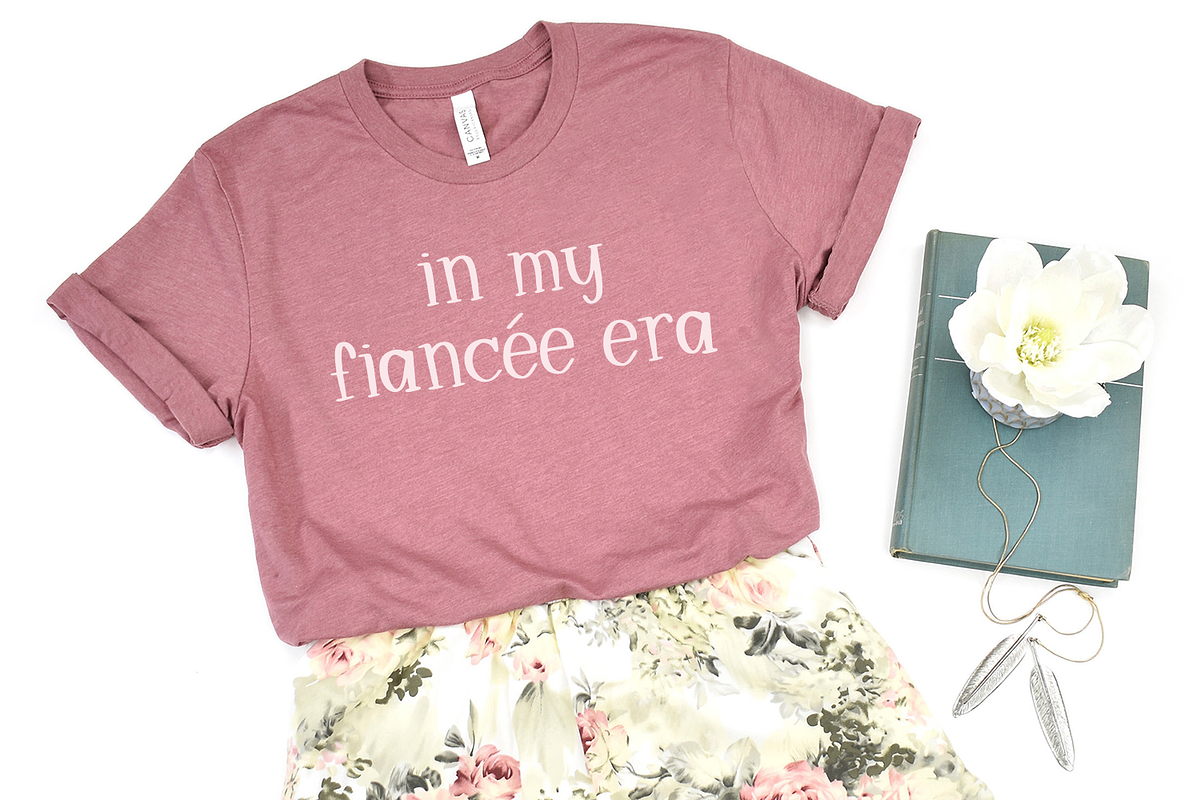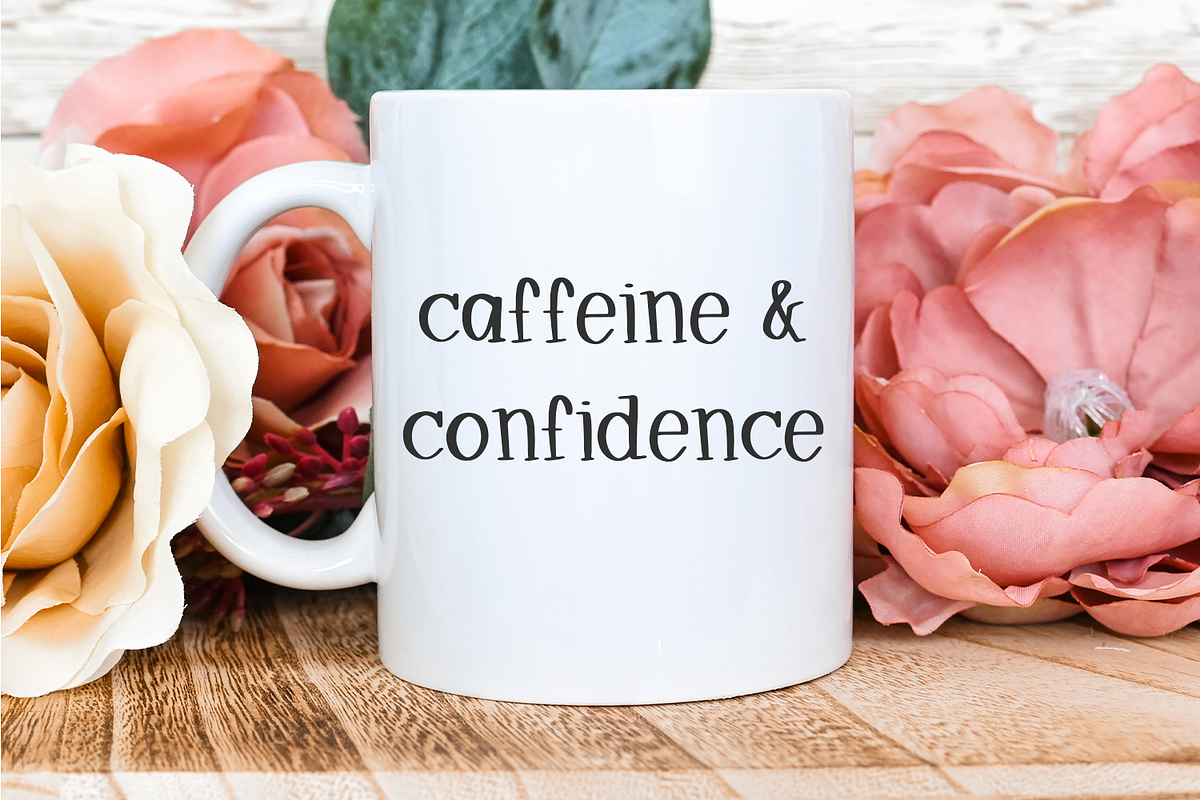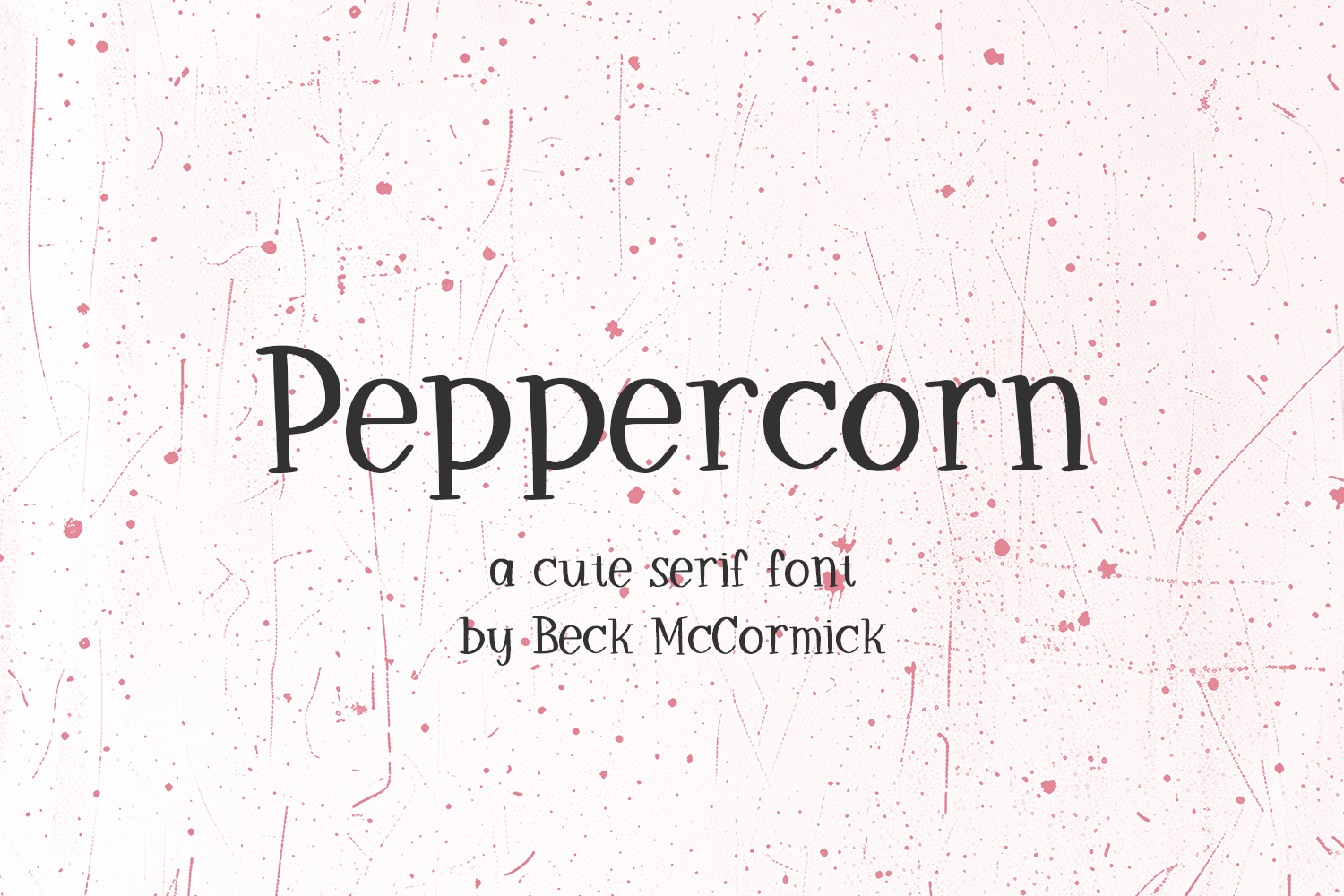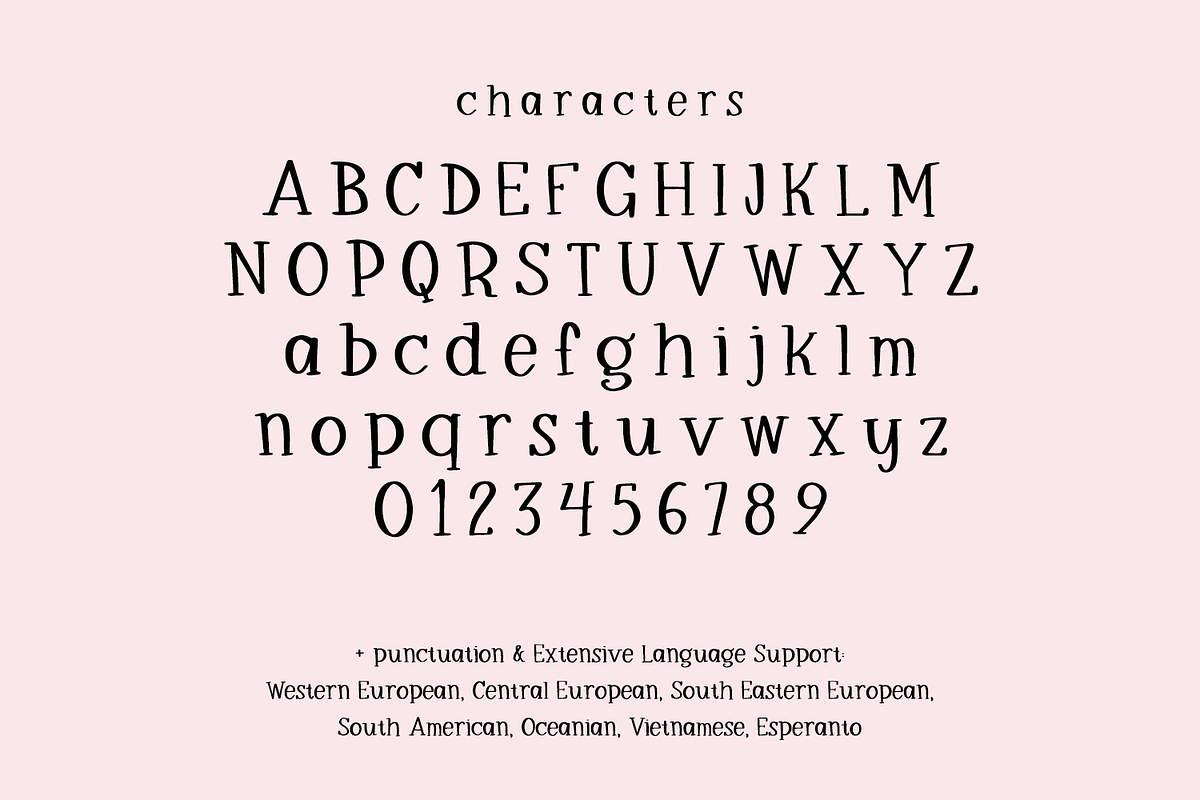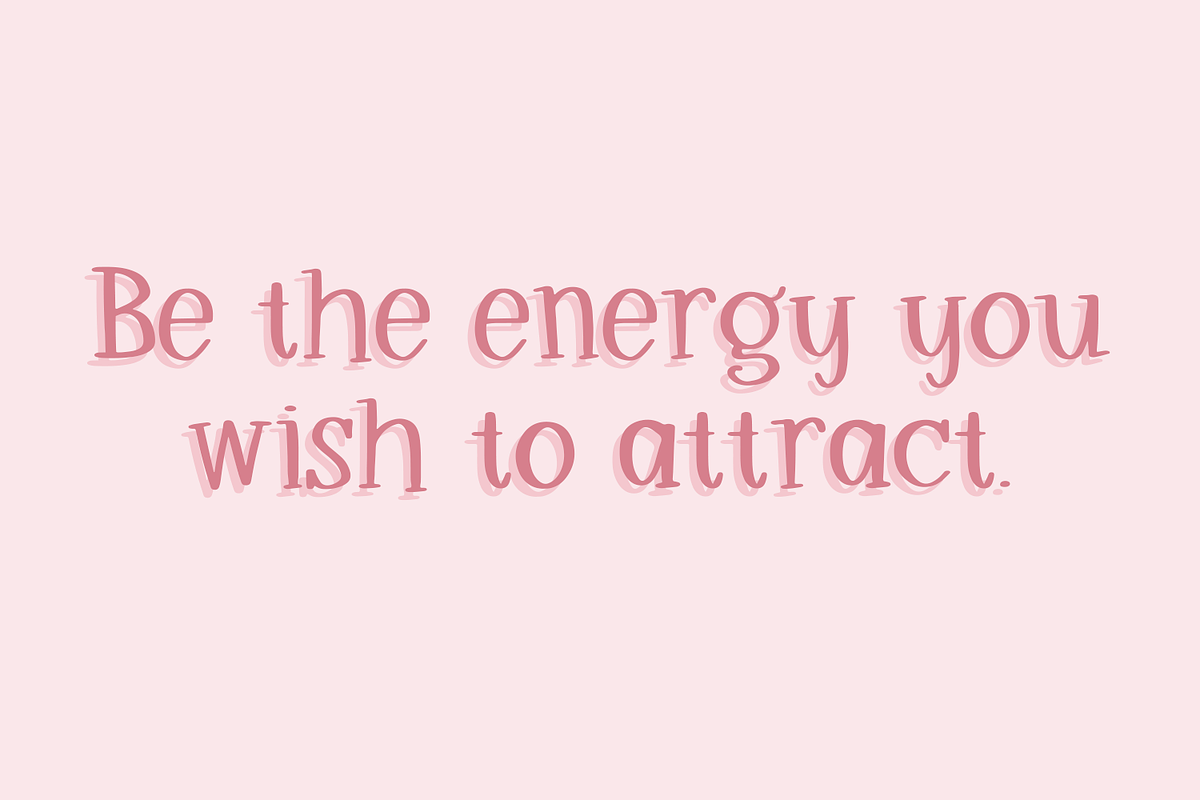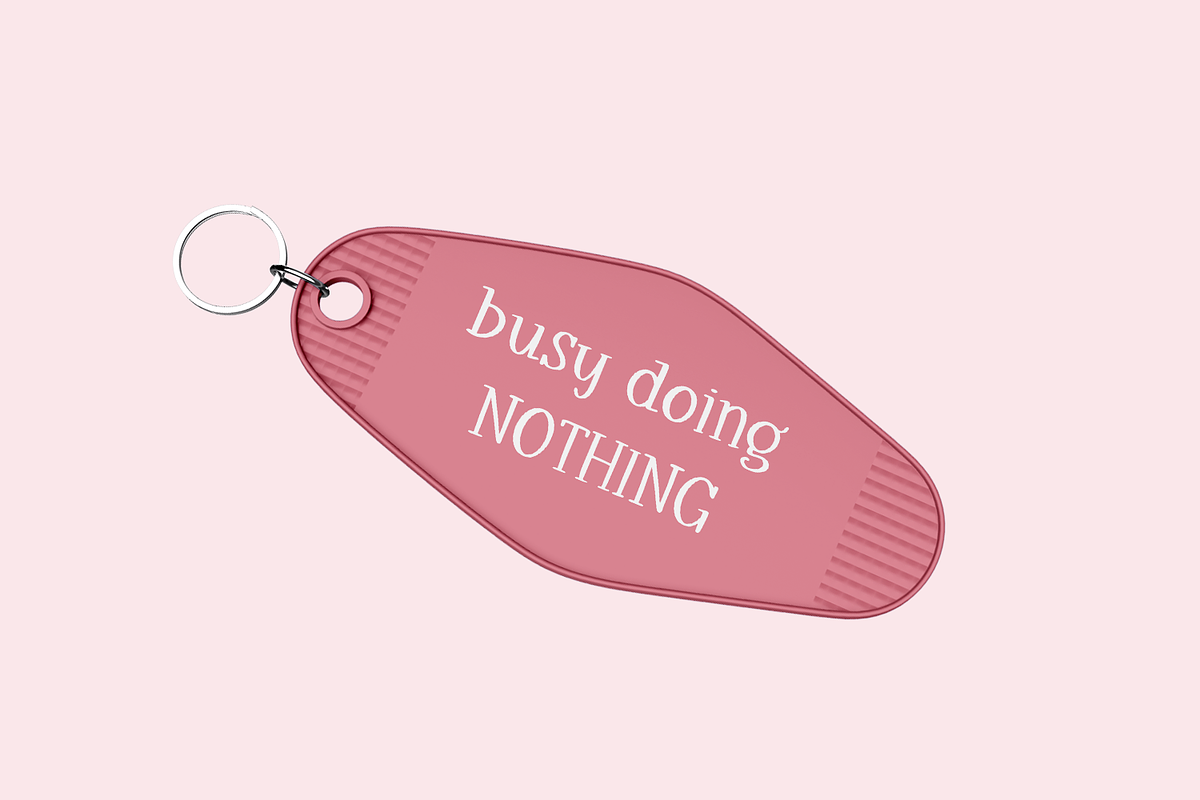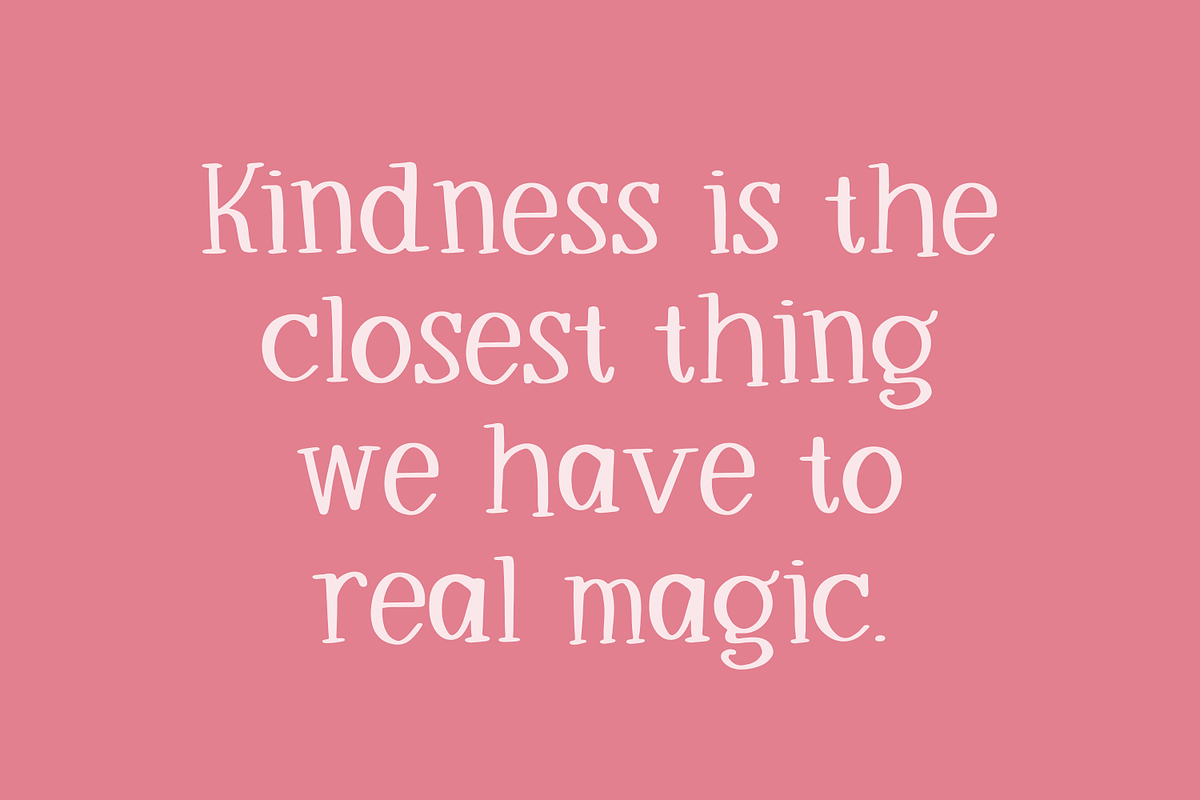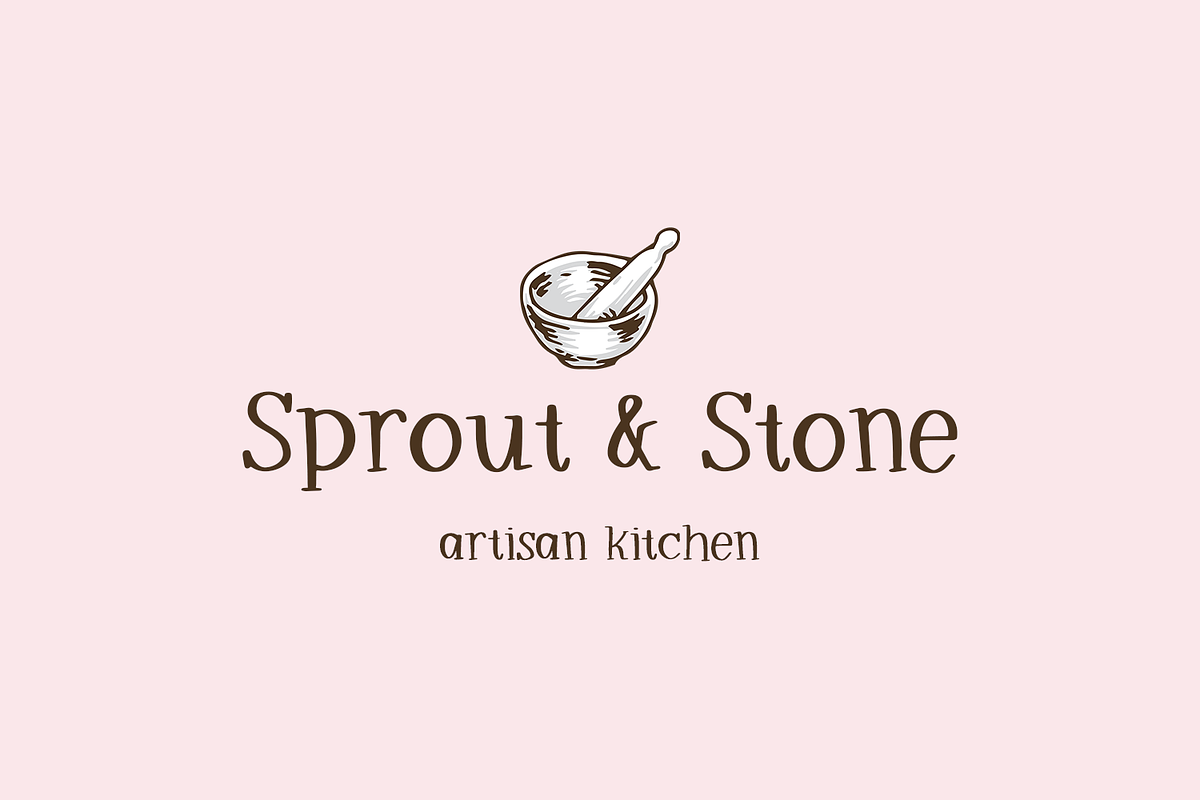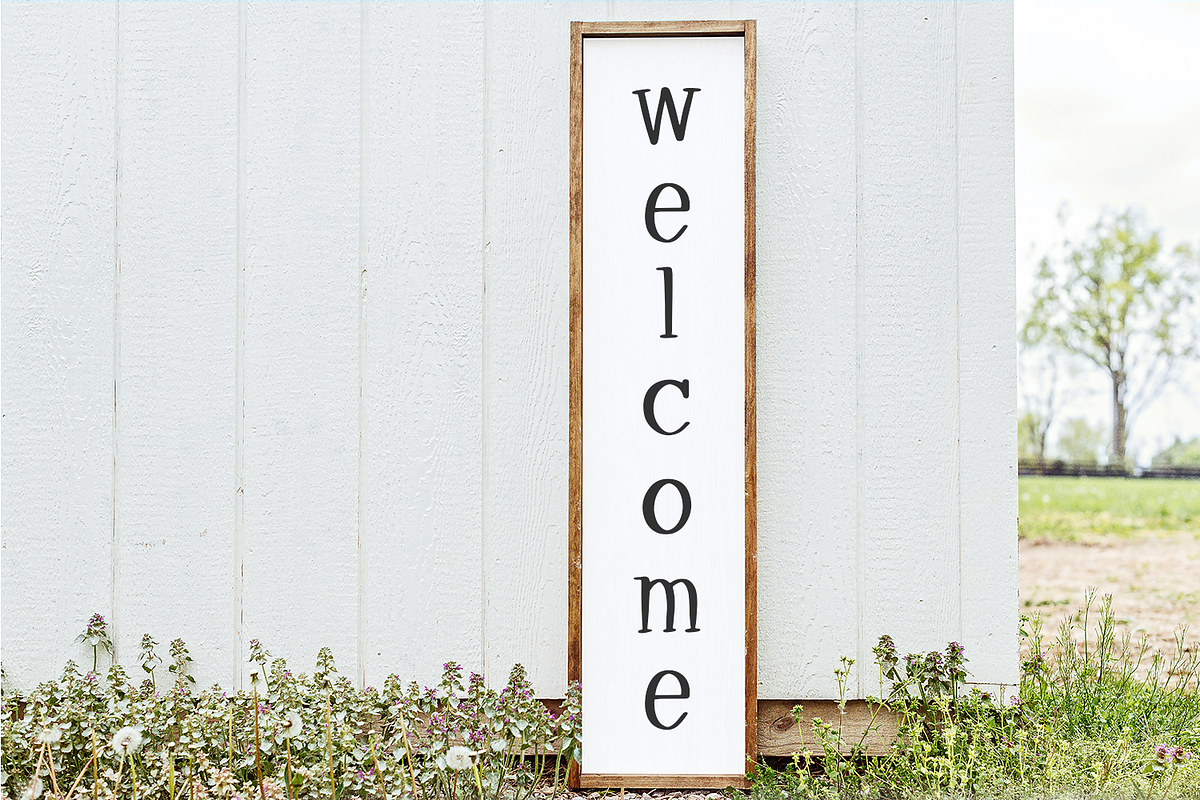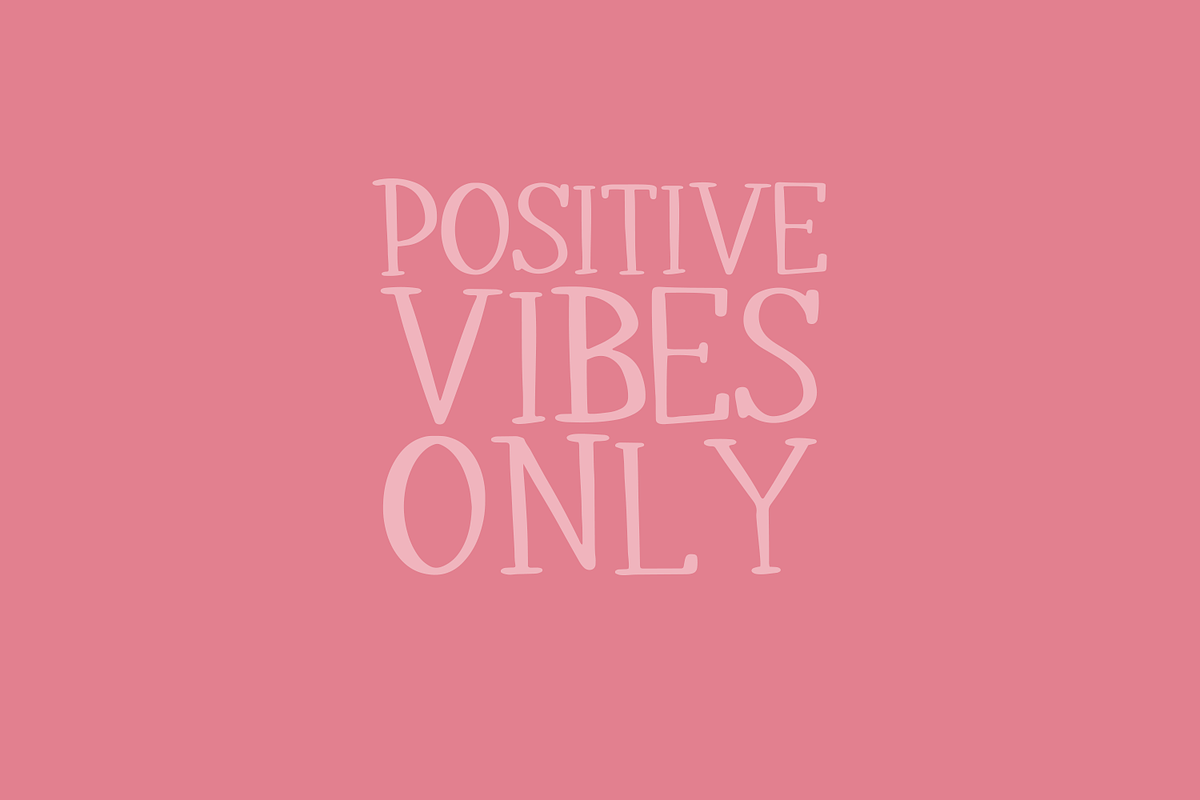
Peppercorn Serif Font
Peppercorn Serif is a rustic, handdrawn serif font with the perfect amount of shabby imperfection to bring character to your next project. Peppercorn is a perfect fit for your farmhouse home decor projects, your Cricut machine, logo & branding projects, marketing materials, social media graphics, & more. Since Peppercorn is legible & neat, it would also be a great fit for your Goodnotes planner, other digital planner, or Notability app!
- full upper + lowercase characters
- numbers + punctuation
- Extensive language support including Western European language support - English, French, Spanish, Portuguese (Brazil), Portuguese (Portugal), Italian, German (Germany), German (Austria), Dutch, Danish, Swedish, Norwegian (Bokmรฅl and Nynorsk), Finnish, Icelandic, Irish, Welsh, Central European, South Eastern European, South American, Oceanian, Vietnamese, and Esperanto